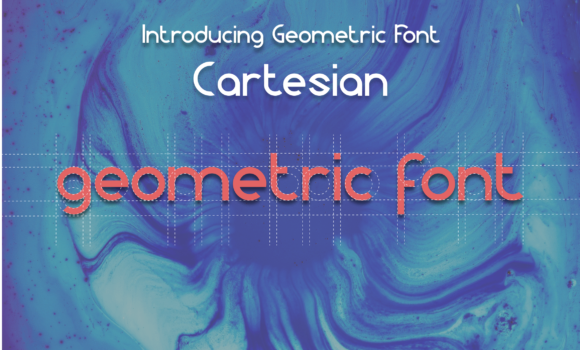
Cartesian Font – Free Download Introduction to Cartesian Font Cartesian is a typeface inspired by the beauty of geometry style with smooth touched. 📸 Preview Gallery 6 images 📌 Product Name Cartesian Font 👤 Author GookkisStudio 📂 Category Explore ⬇️